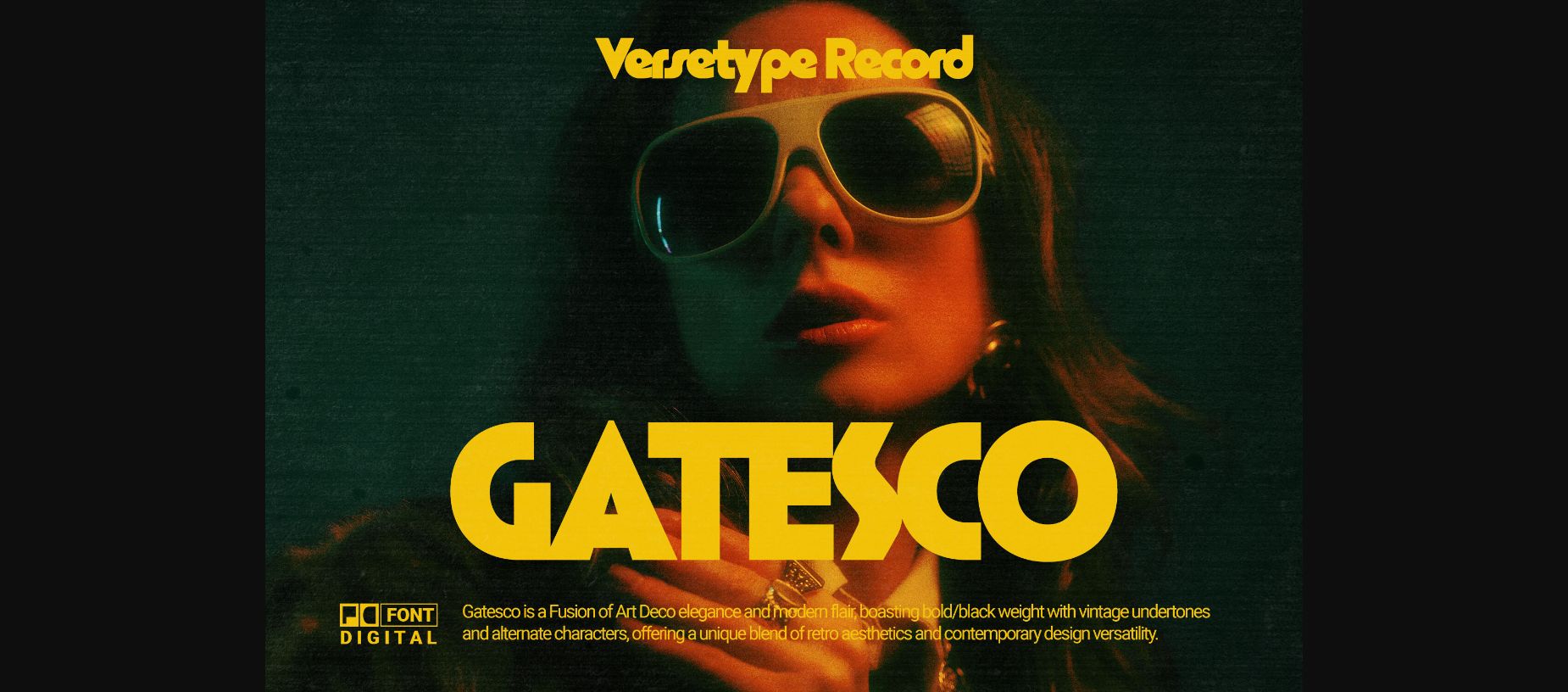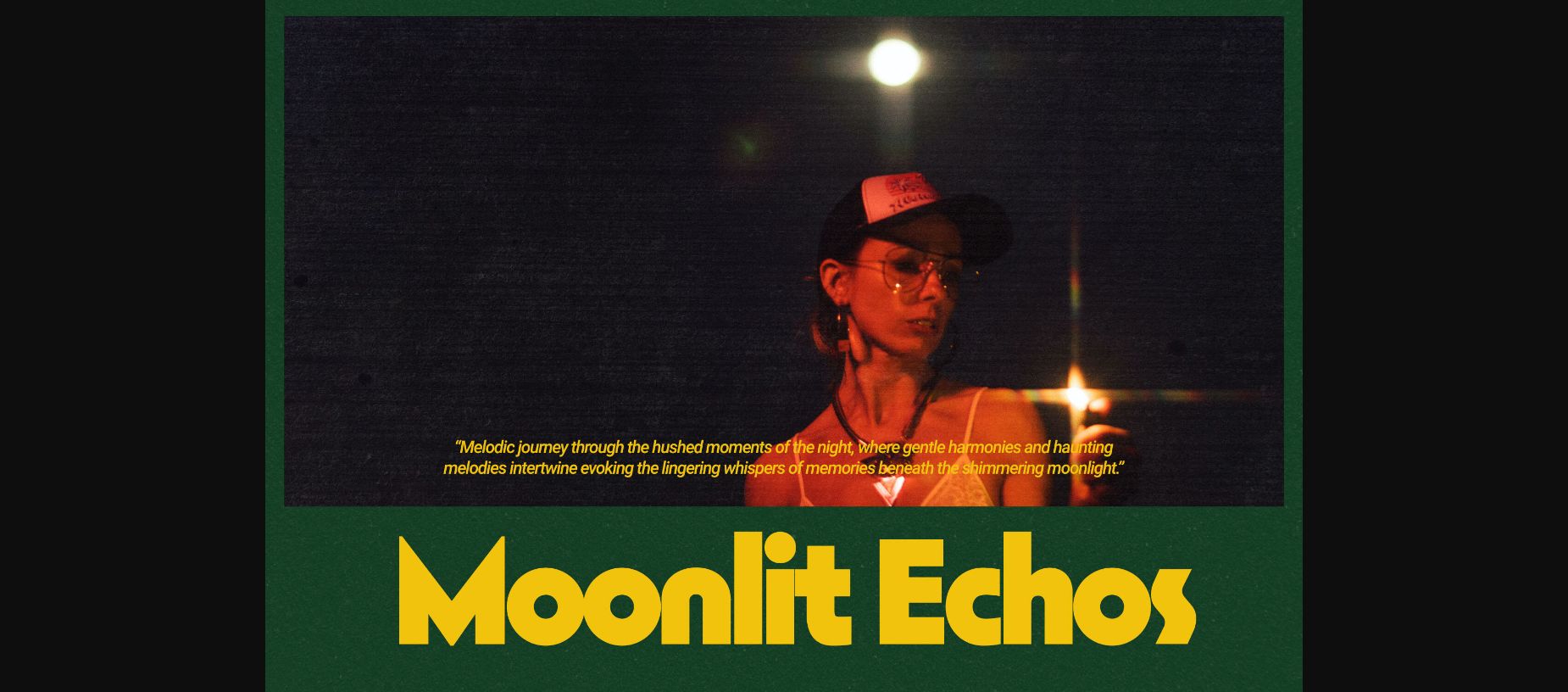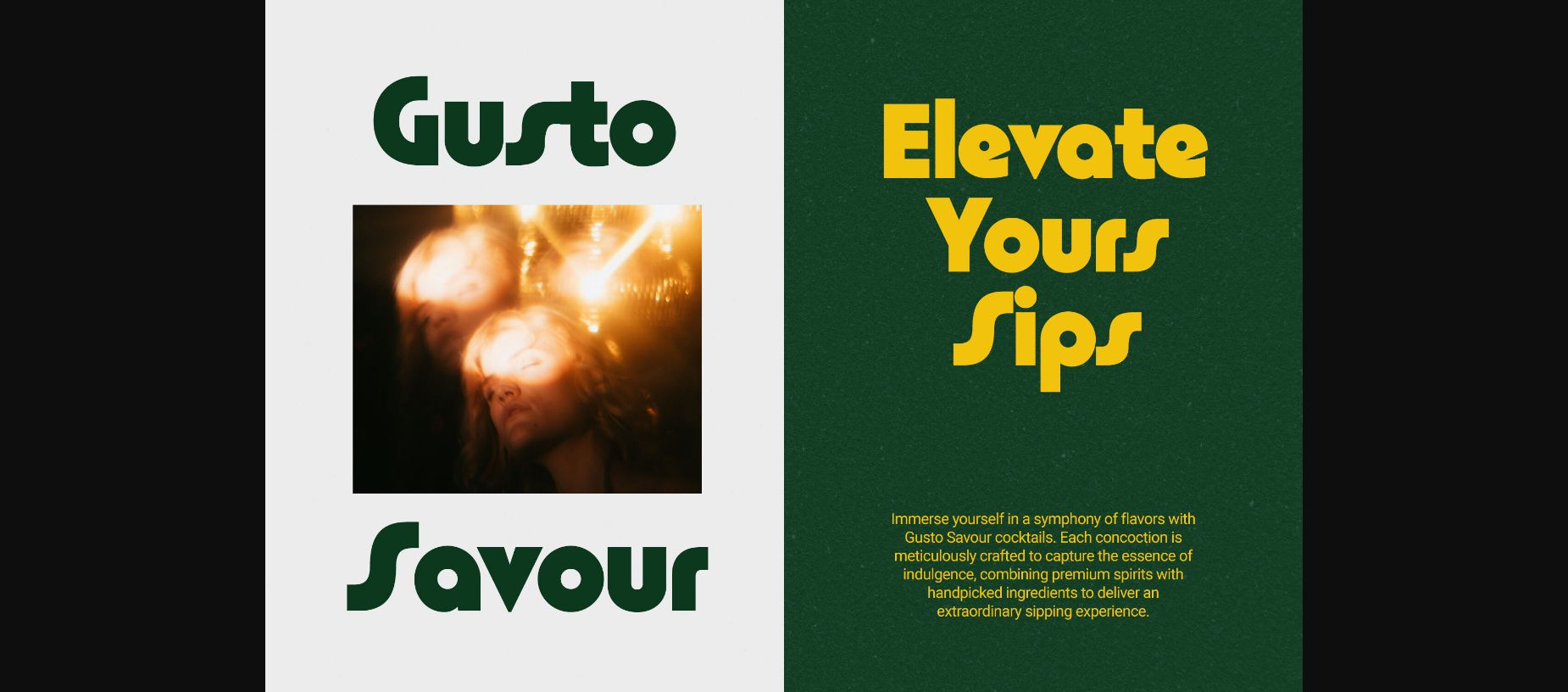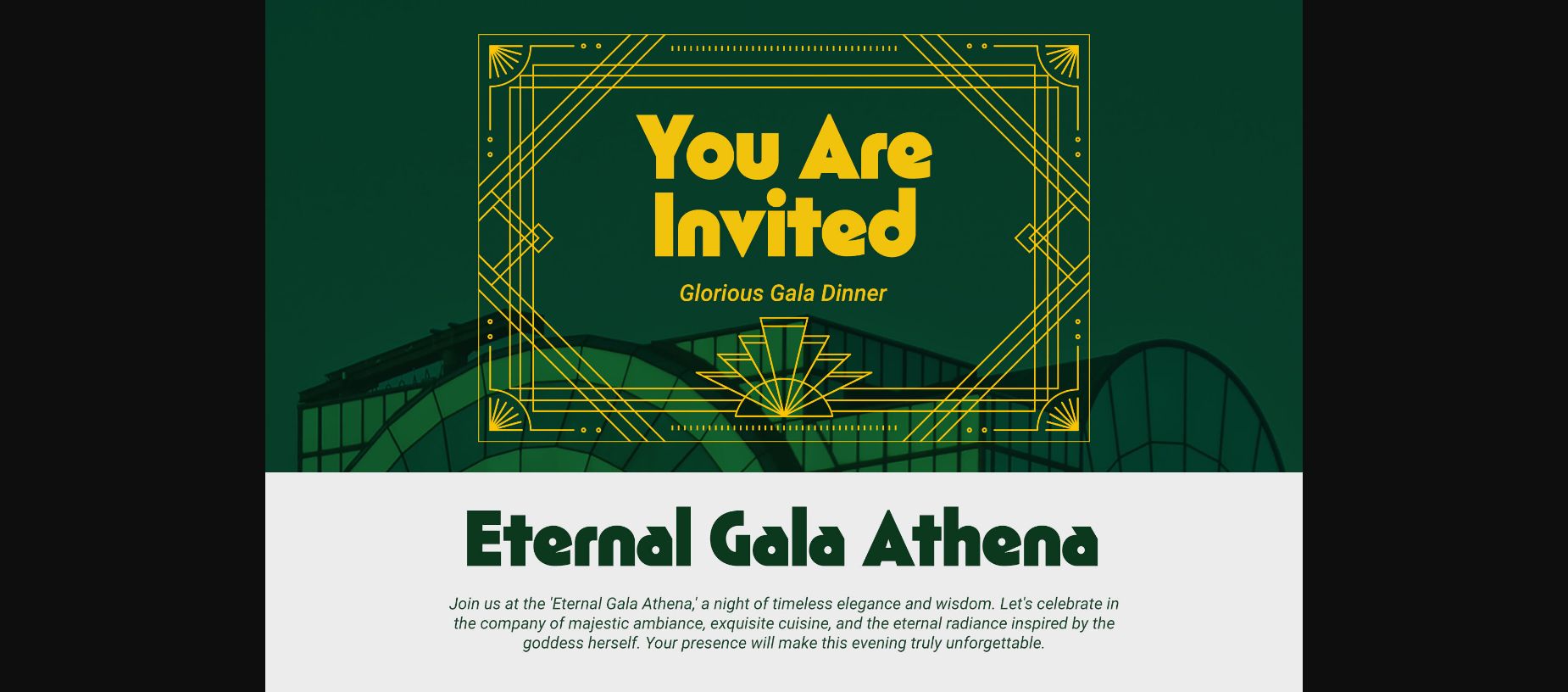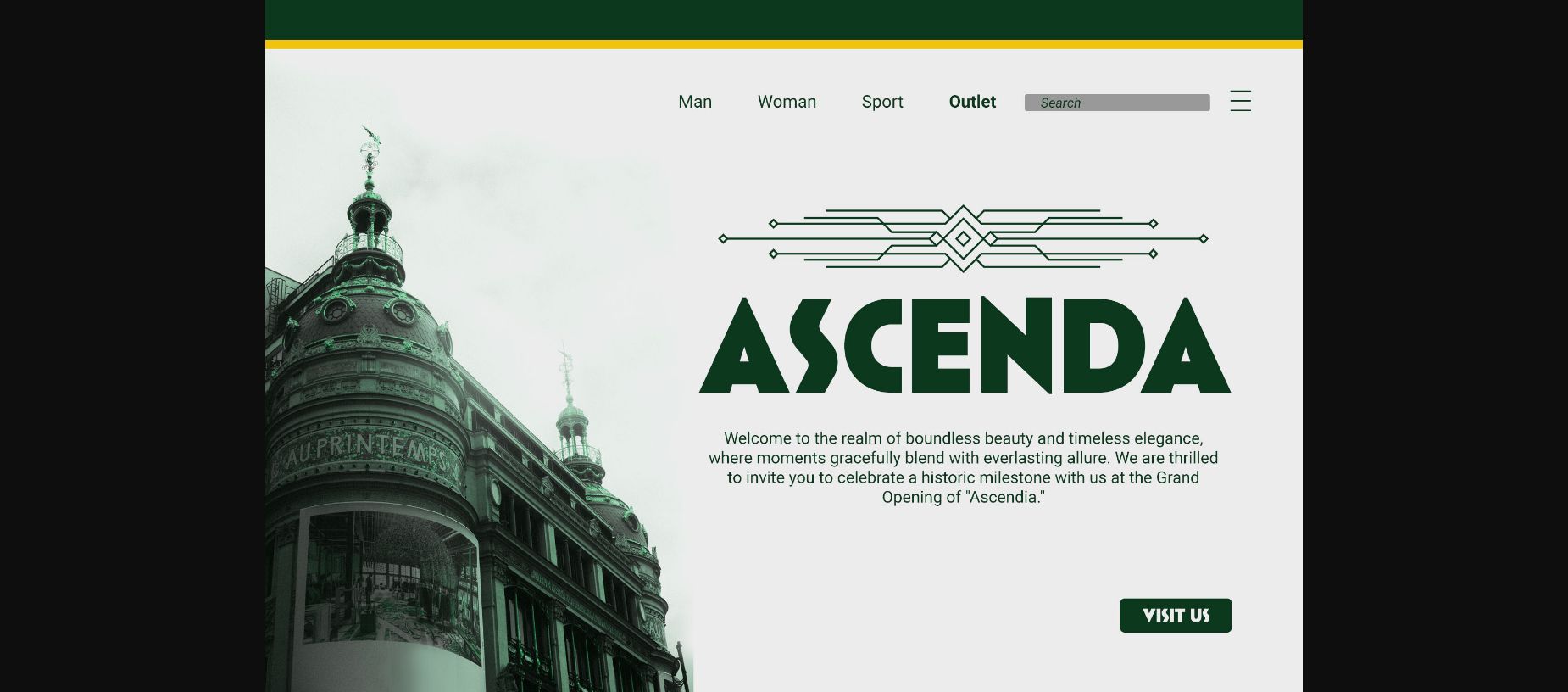
About Gatesco Font
Gatesco is a distinctive font that seamlessly marries the timeless allure of Art Deco with a contemporary twist. This bold and striking typeface pays homage to the opulence of the past while embracing the sleek and minimalistic aesthetic of modern design. With its rich history and cutting-edge vibe, Gatesco captures the essence of two eras in a single, captivating font.